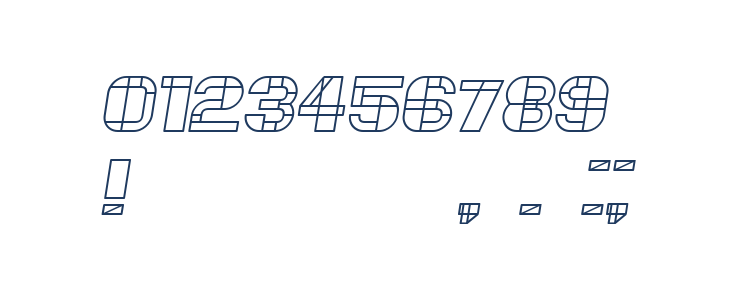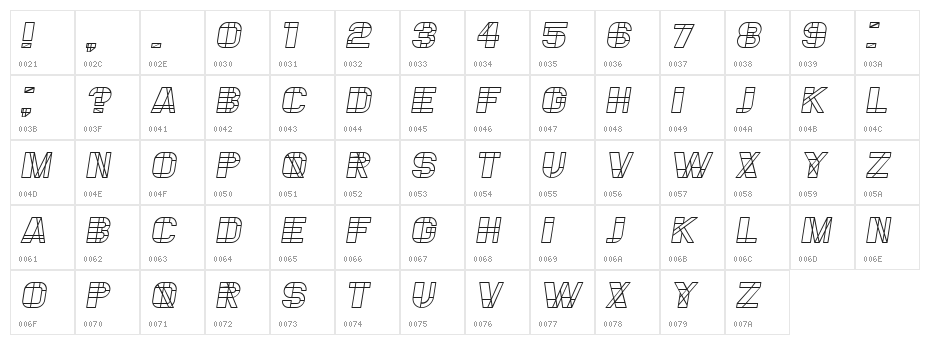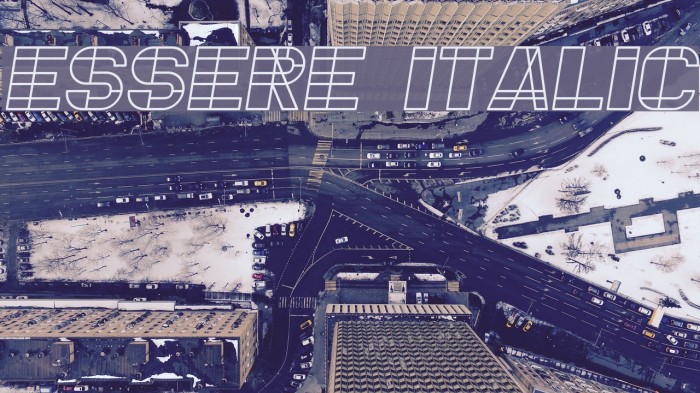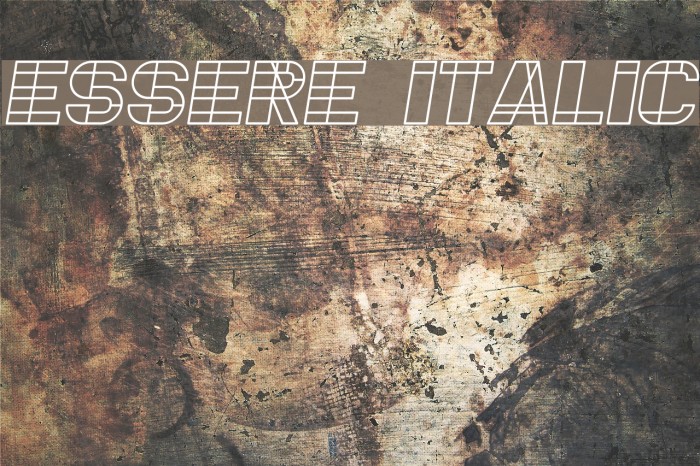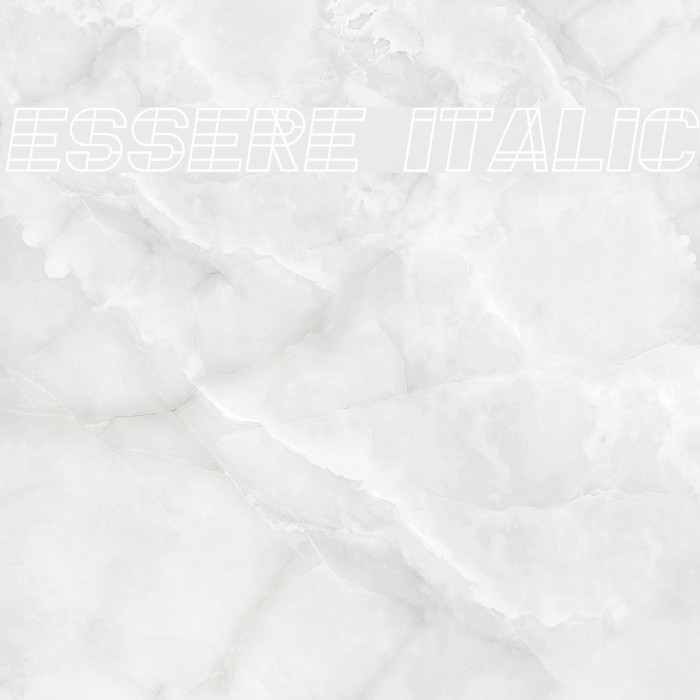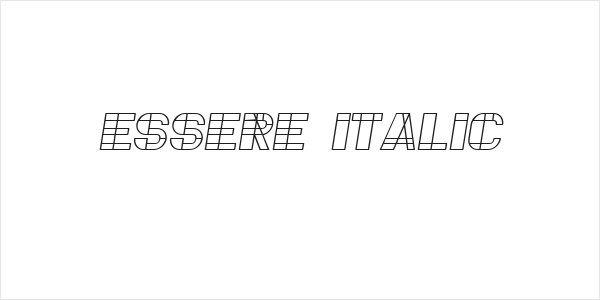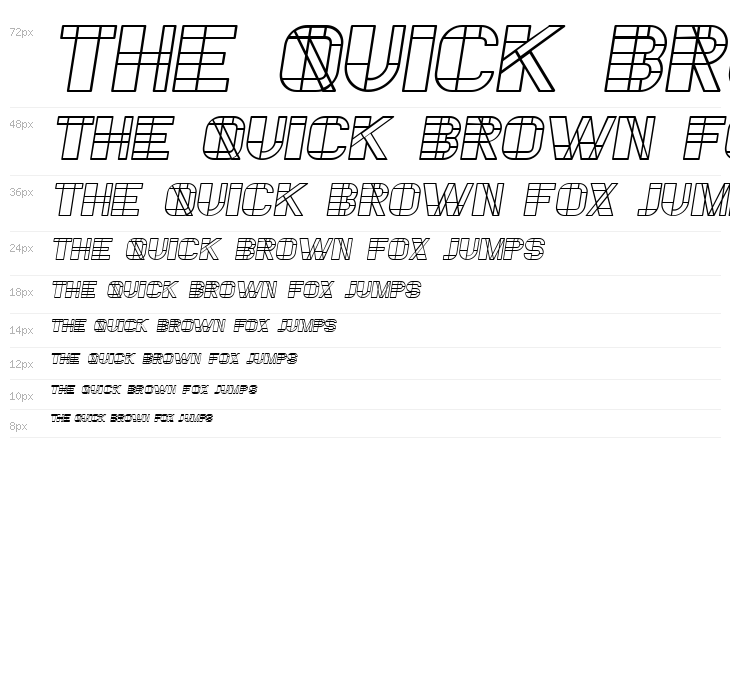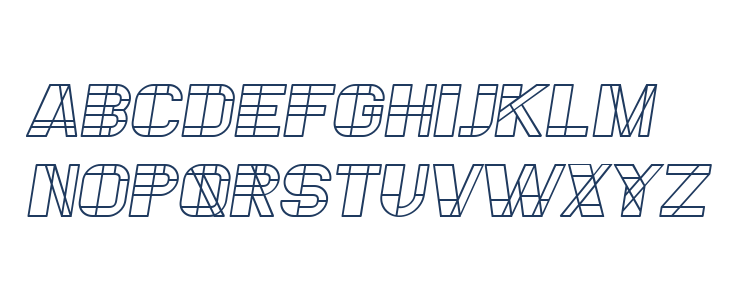
Essere Italic Font
Essere Italic Description
This font features a unique, modern design with a geometric, outlined style. Each character is constructed with parallel lines, creating a sense of depth and movement. The italic slant adds a dynamic feel, enhancing its contemporary aesthetic. The uppercase letters are bold and striking, while the numbers maintain the same geometric consistency. Special characters are included, maintaining the overall design integrity. This font is ideal for projects that require a futuristic or tech-inspired look.
| Proposed Projects | Ideal for tech branding, futuristic posters, digital media, and innovative product packaging. |